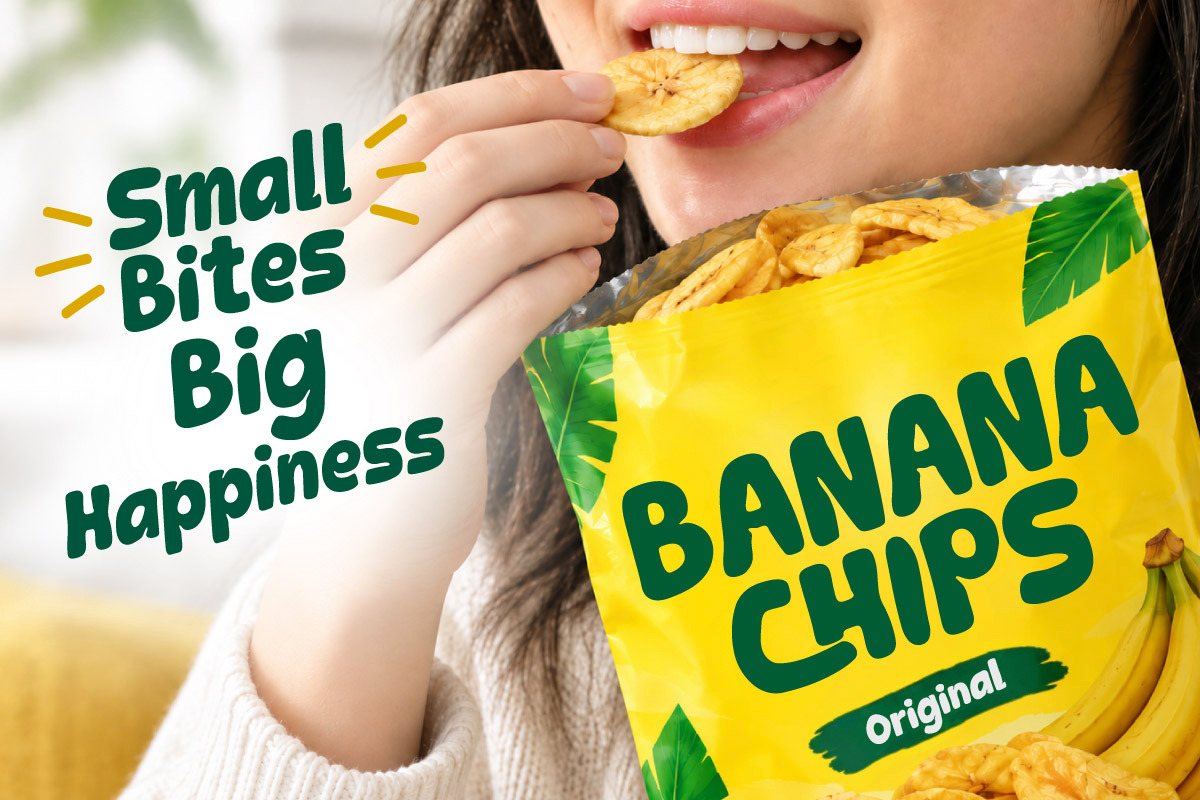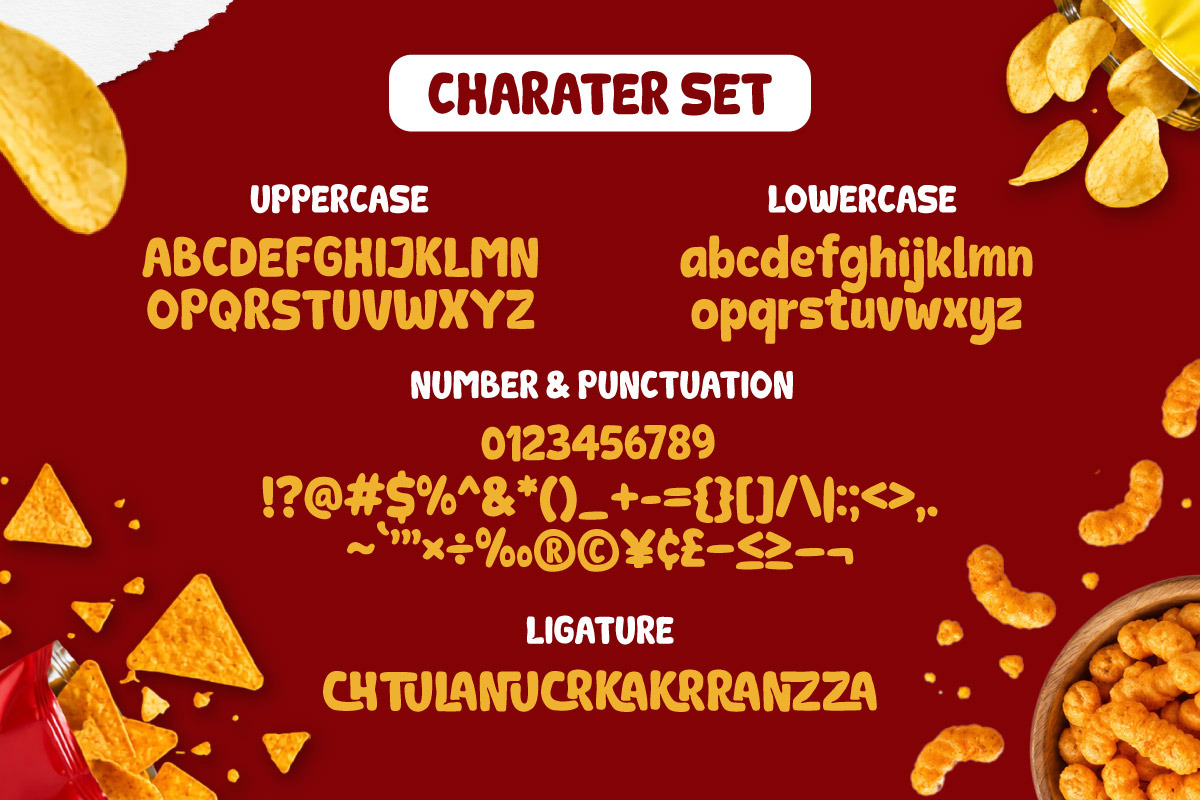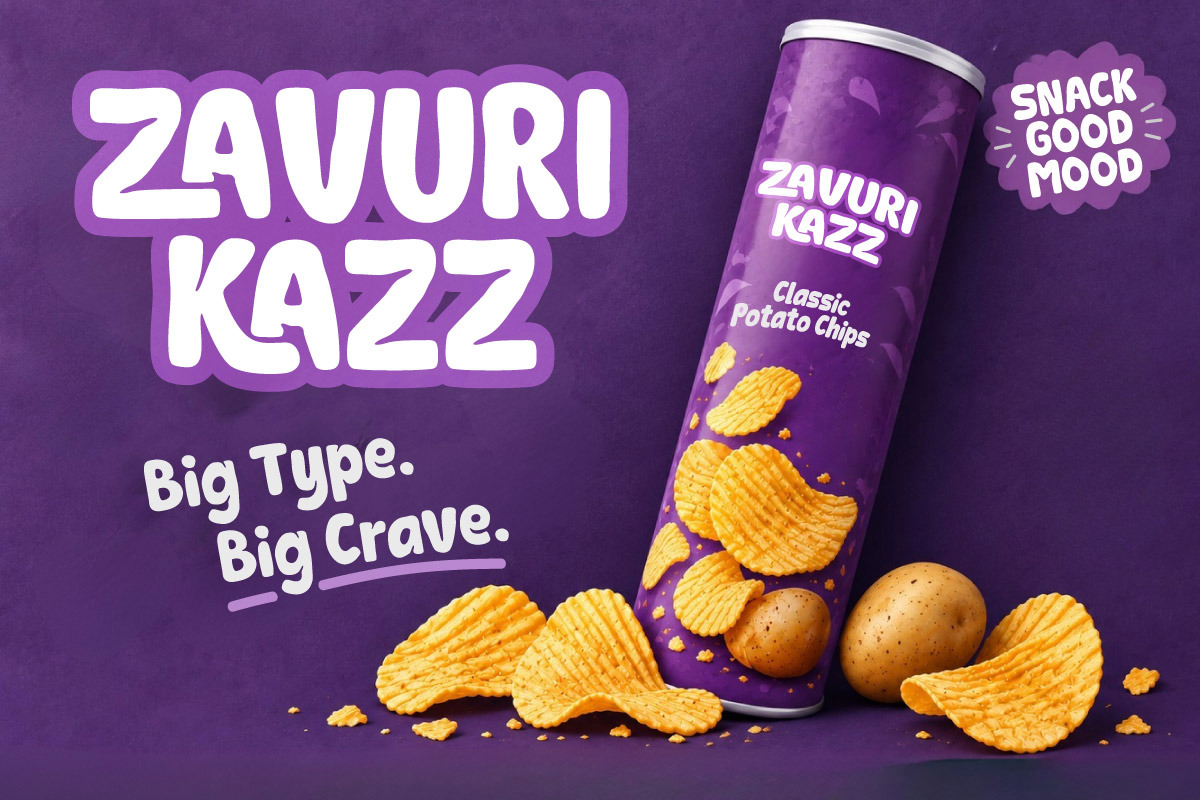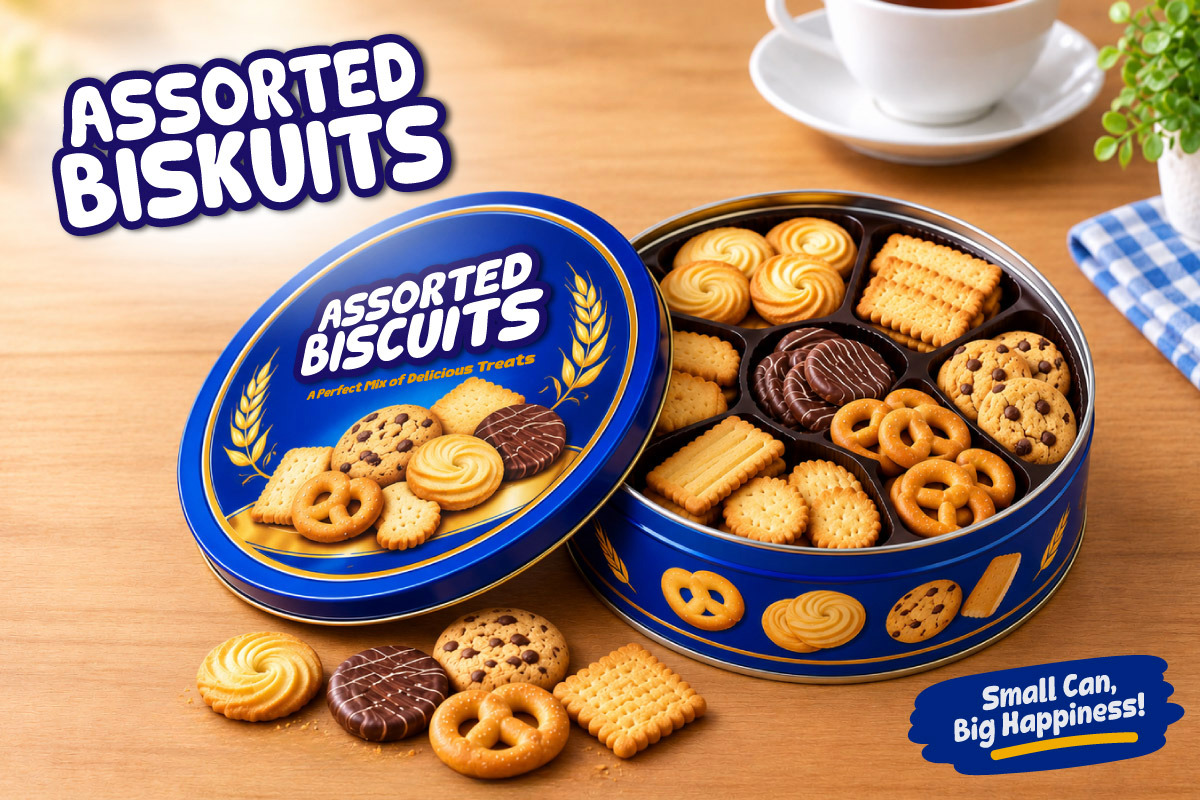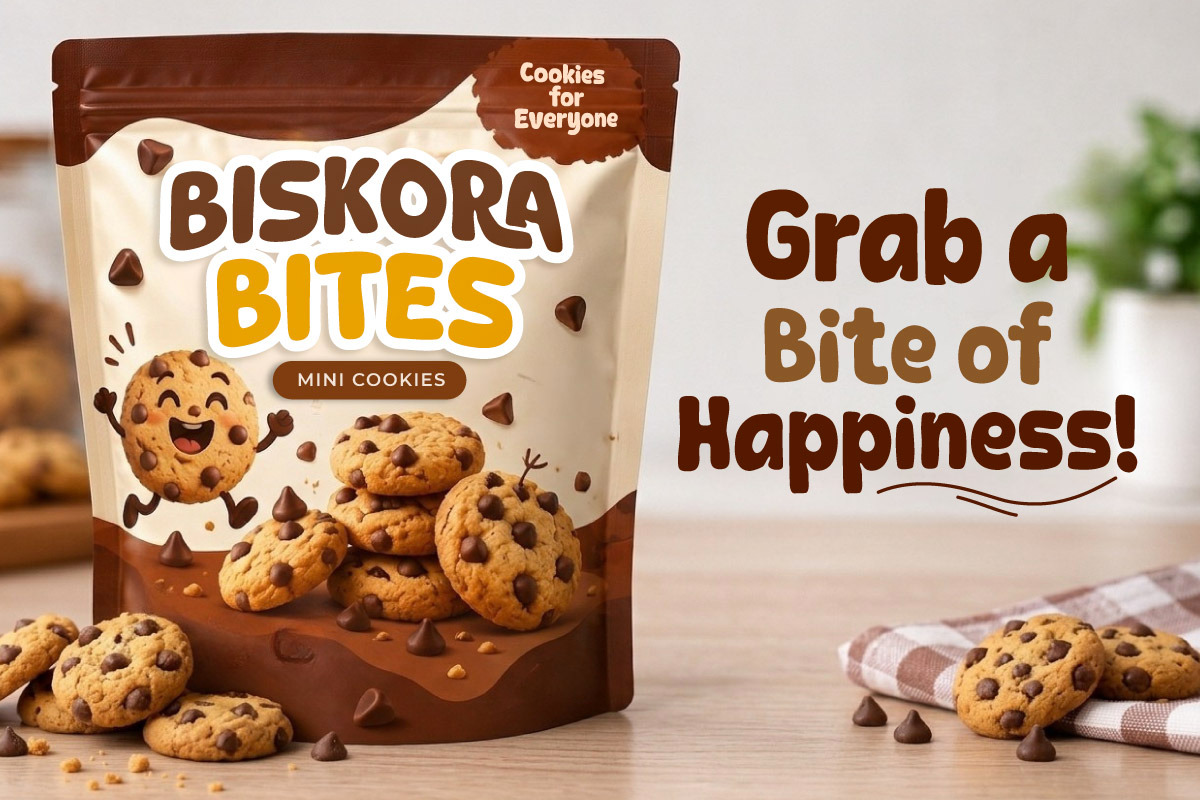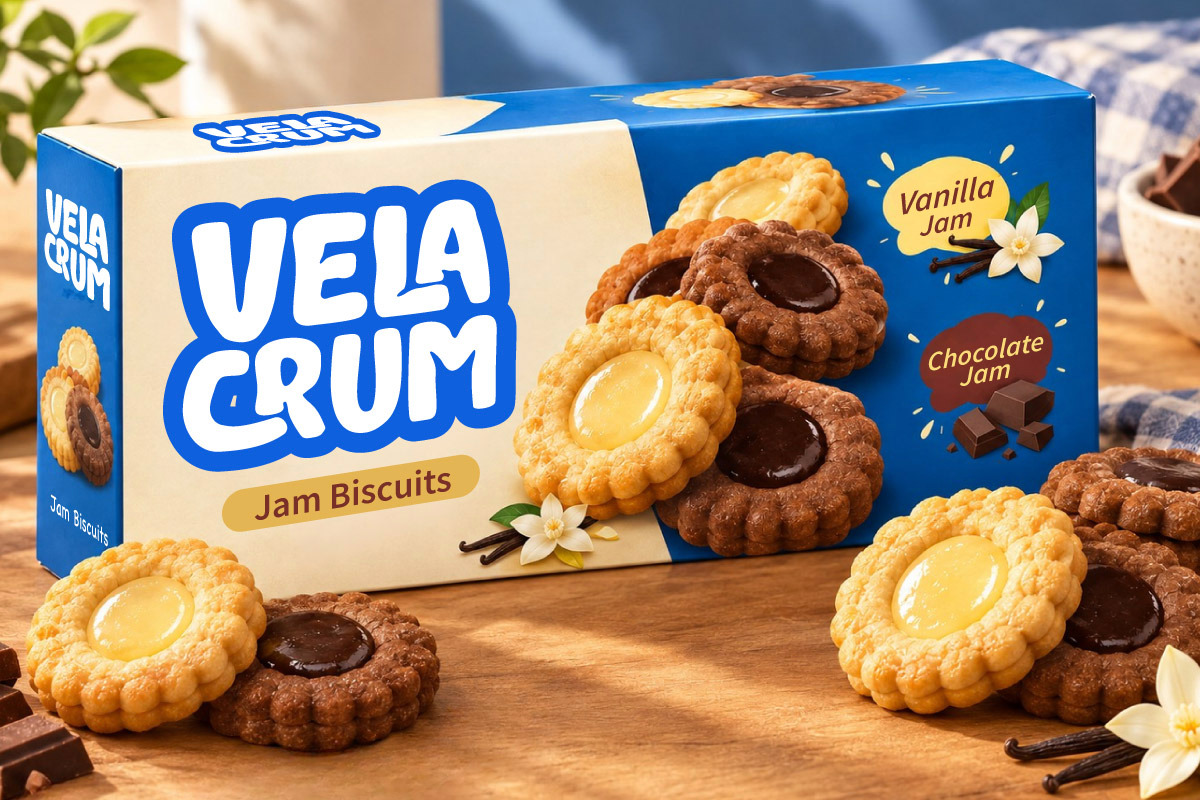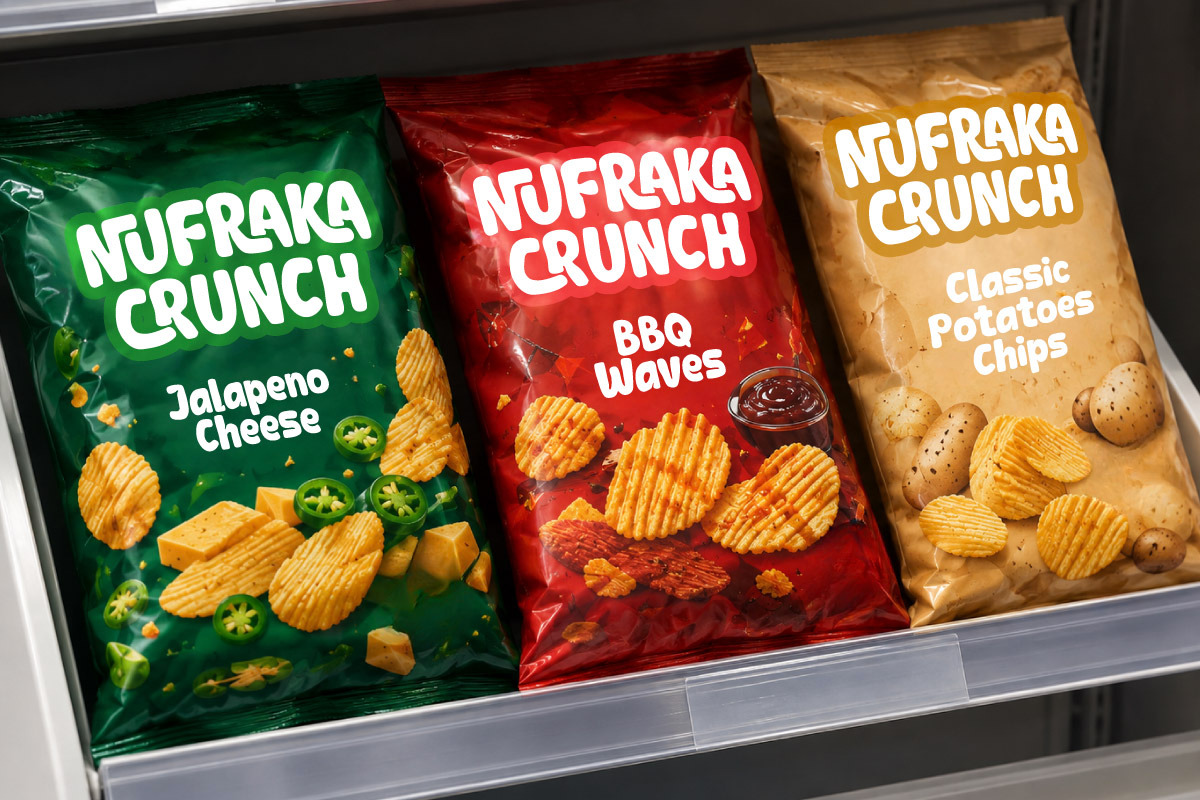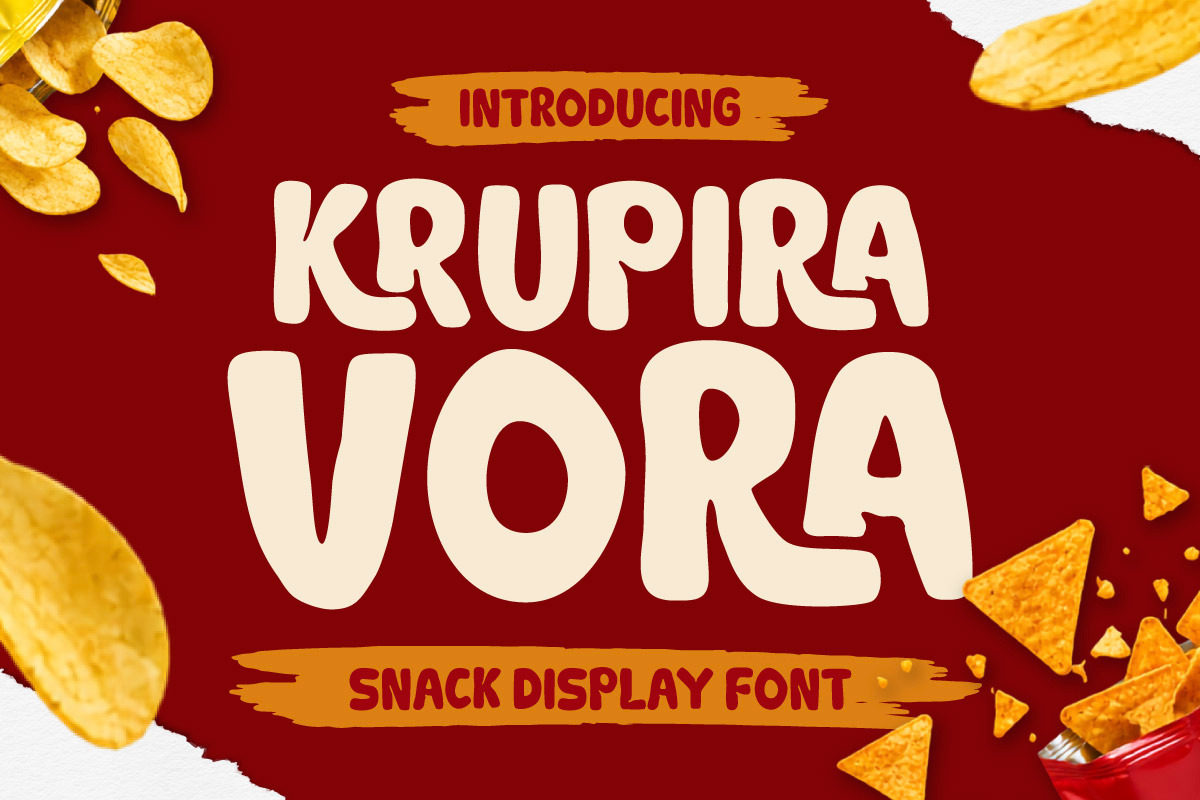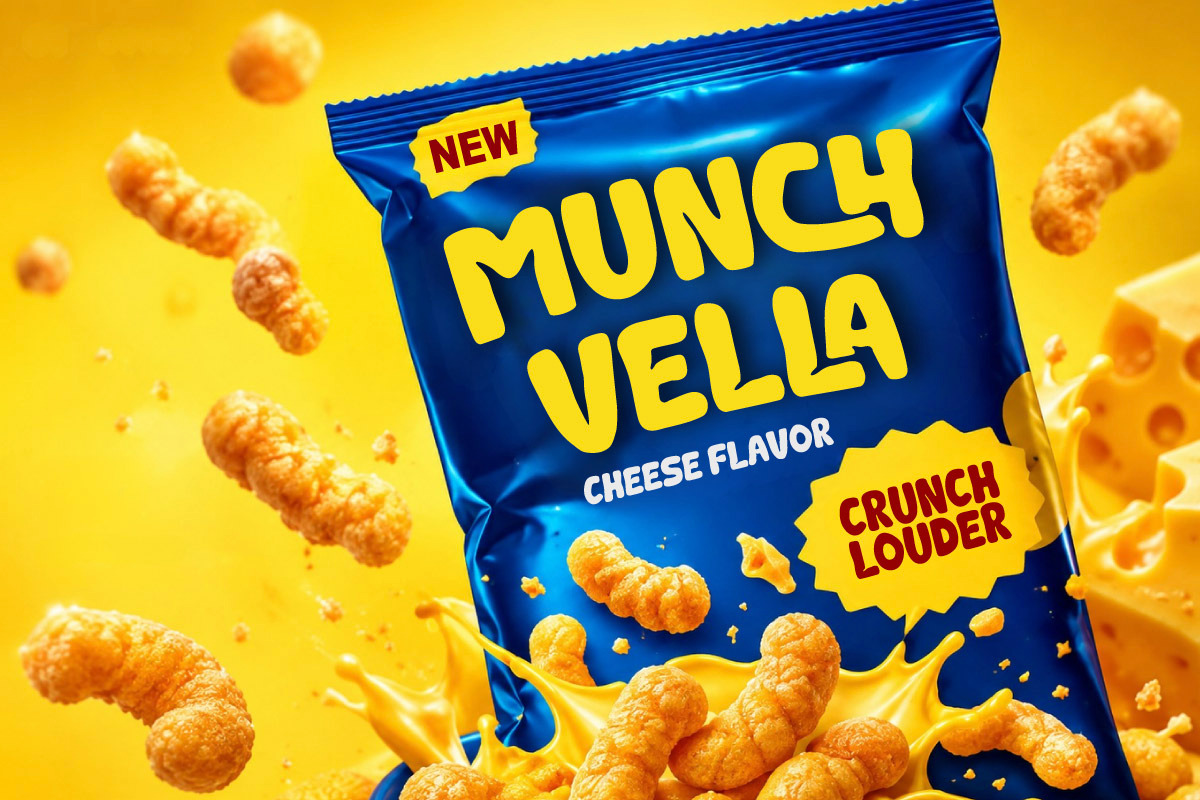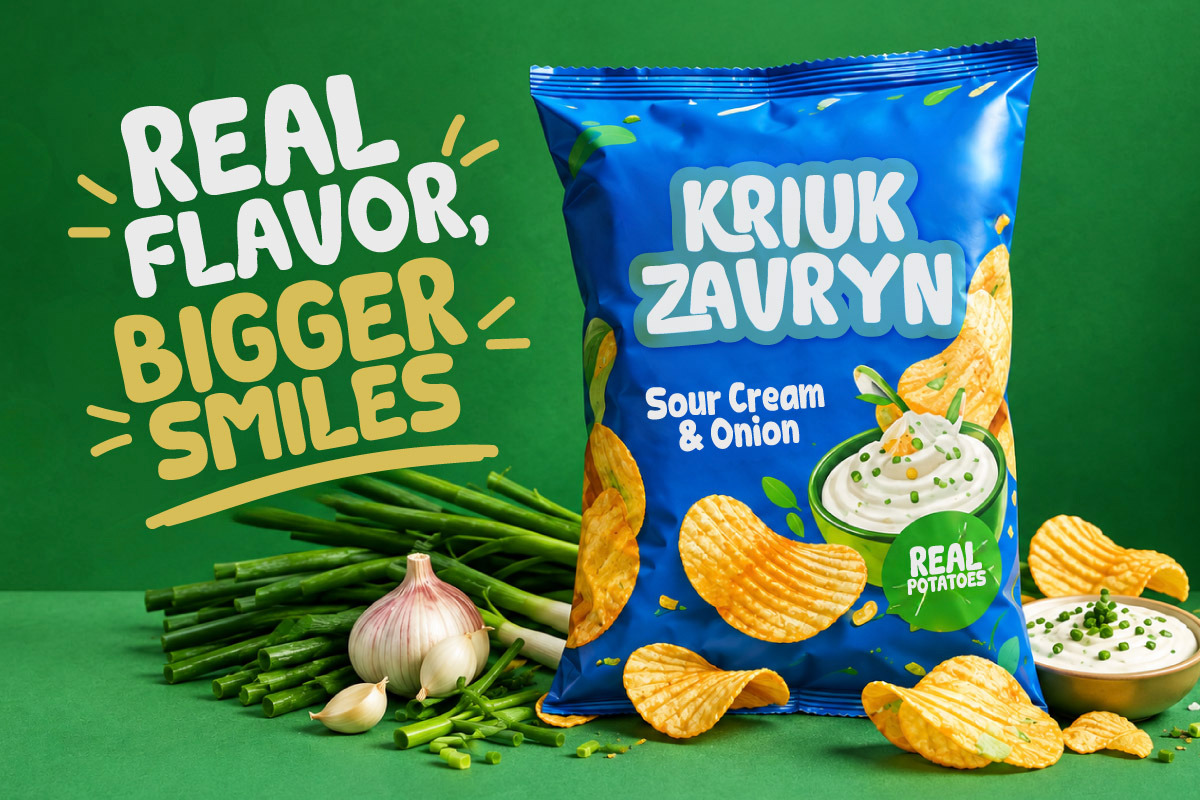
Krupira Vora - Snack Display Font
Krupira Vora is a bold, assertive display font designed specifically for snack packaging, fast-moving consumer goods (FMCG), and dynamic retail advertising. With its sturdy letterforms and friendly, organic curves, the typeface delivers an appetizing visual appeal that instantly grabs attention amidst crowded retail shelves.
Optimized for maximum commercial impact, Krupira Vora excels across various media—from foil snack wrappers, biscuit boxes, and potato chip tubes to pastry bags, supermarket banners, and retail displays. Its bold weight and high visibility ensure that brand names, flavor descriptors, and key slogans remain sharp and legible from any distance.
Featuring a comprehensive set of uppercase and lowercase characters, numerals, punctuation, and a collection of ligatures, Krupira Vora offers complete creative flexibility. Transform your food packaging and retail branding with a bold typographic solution designed to whet the appetite.